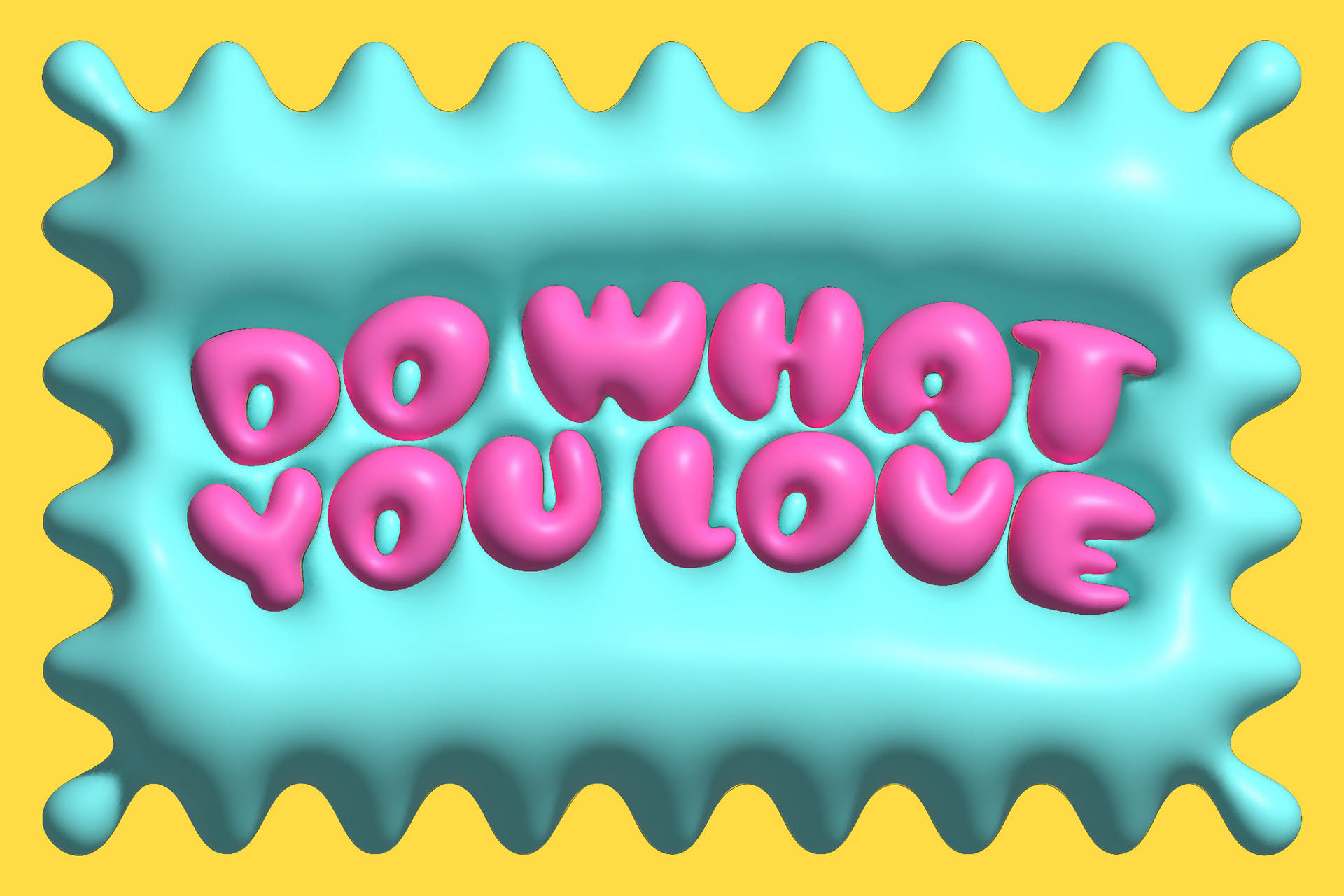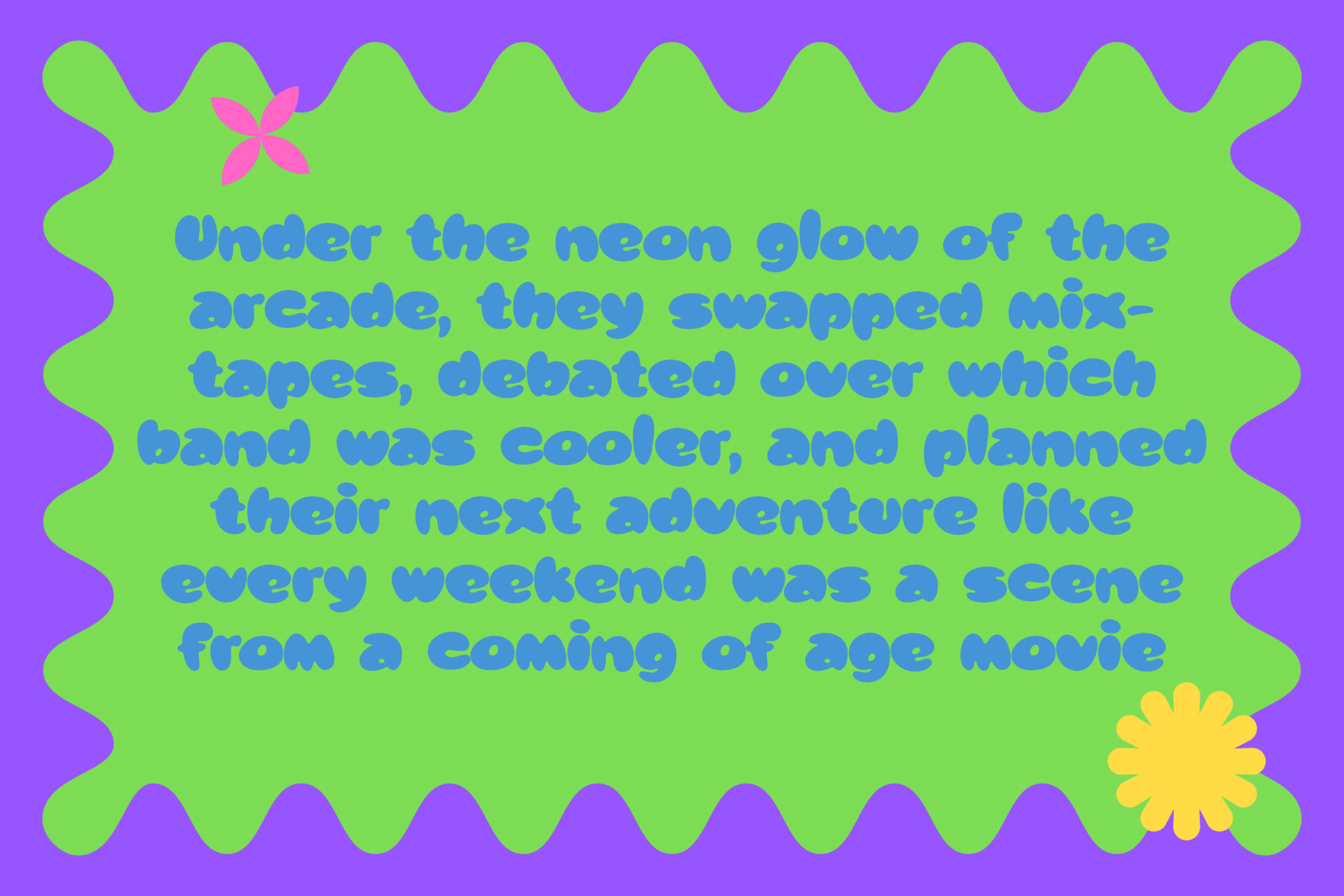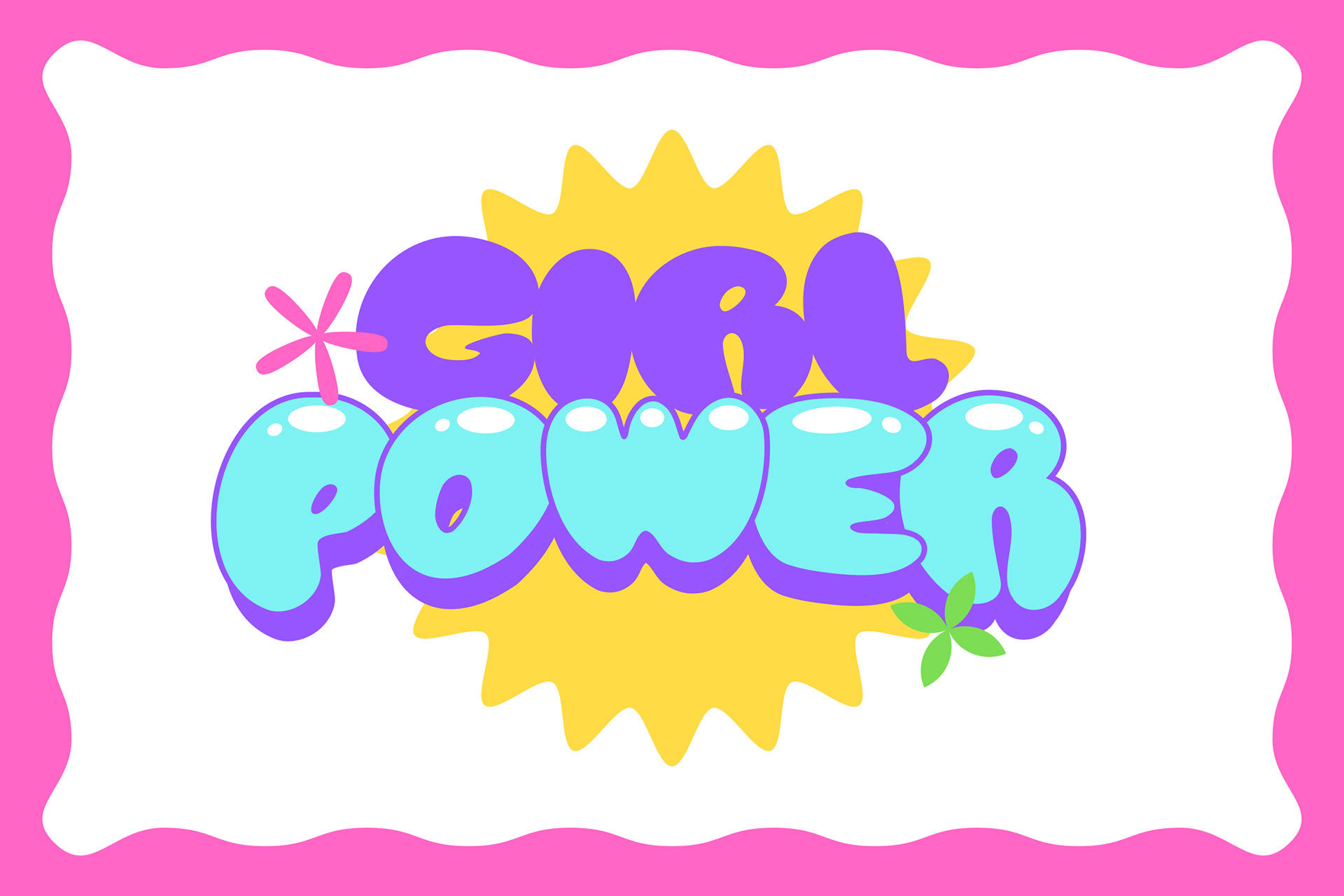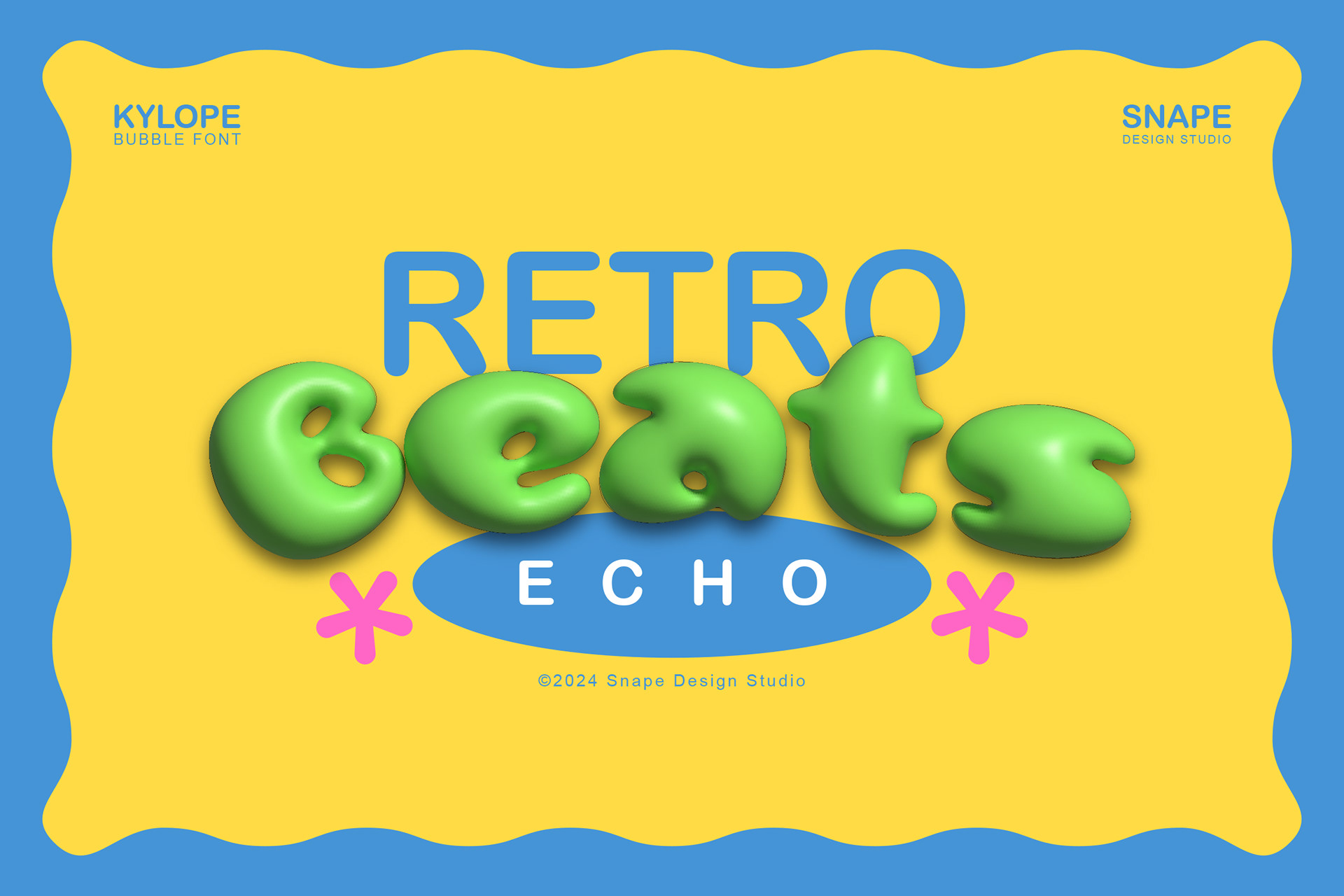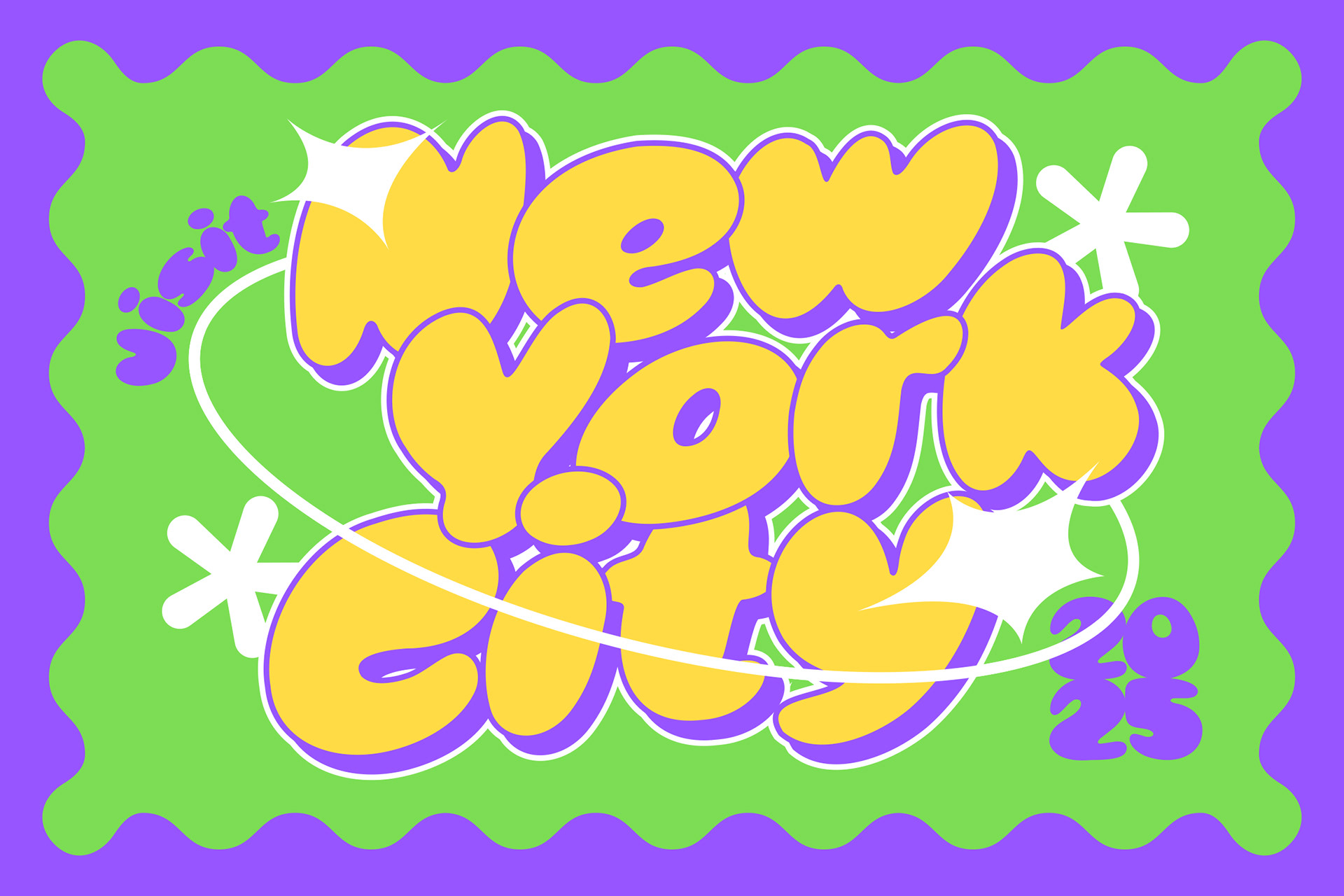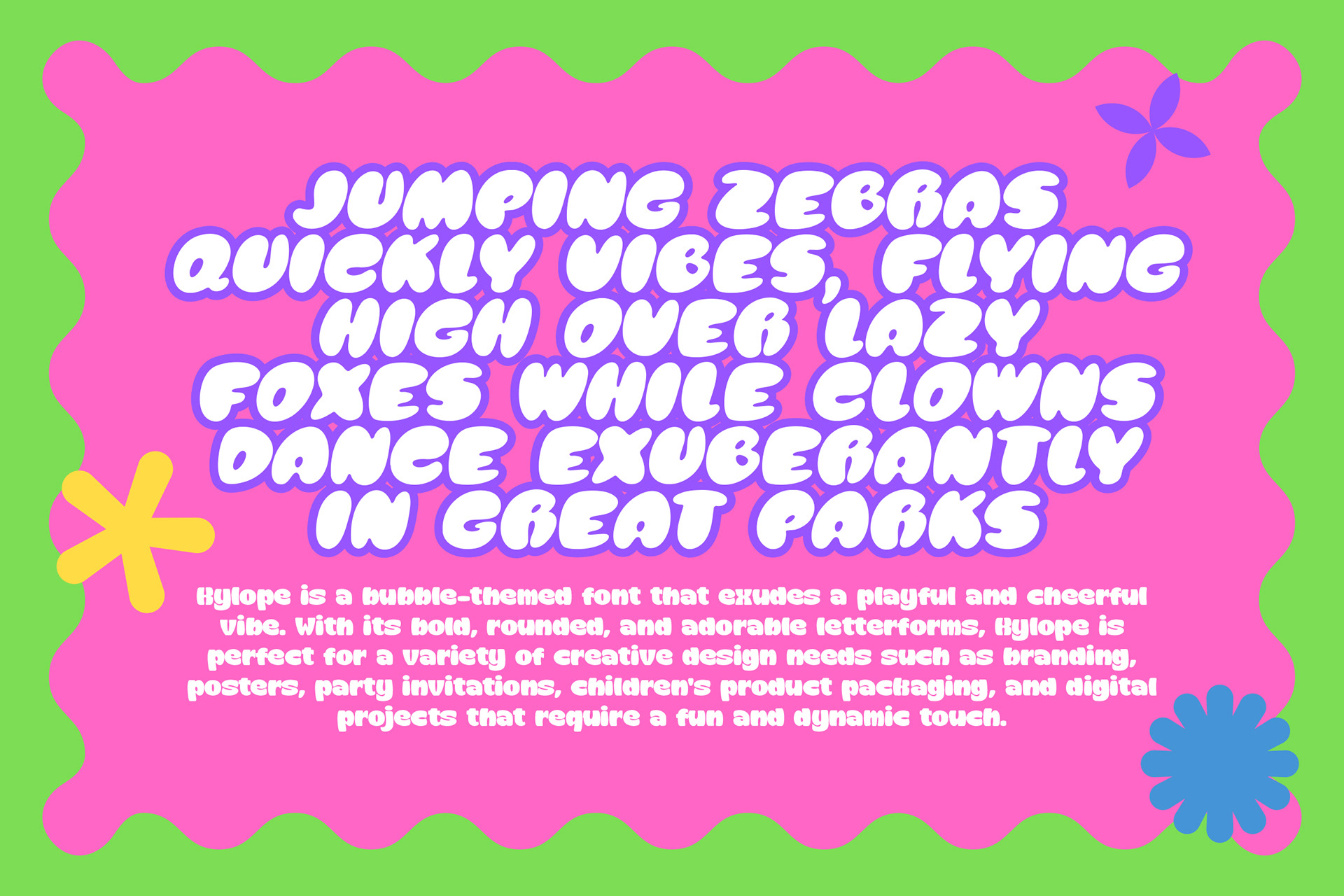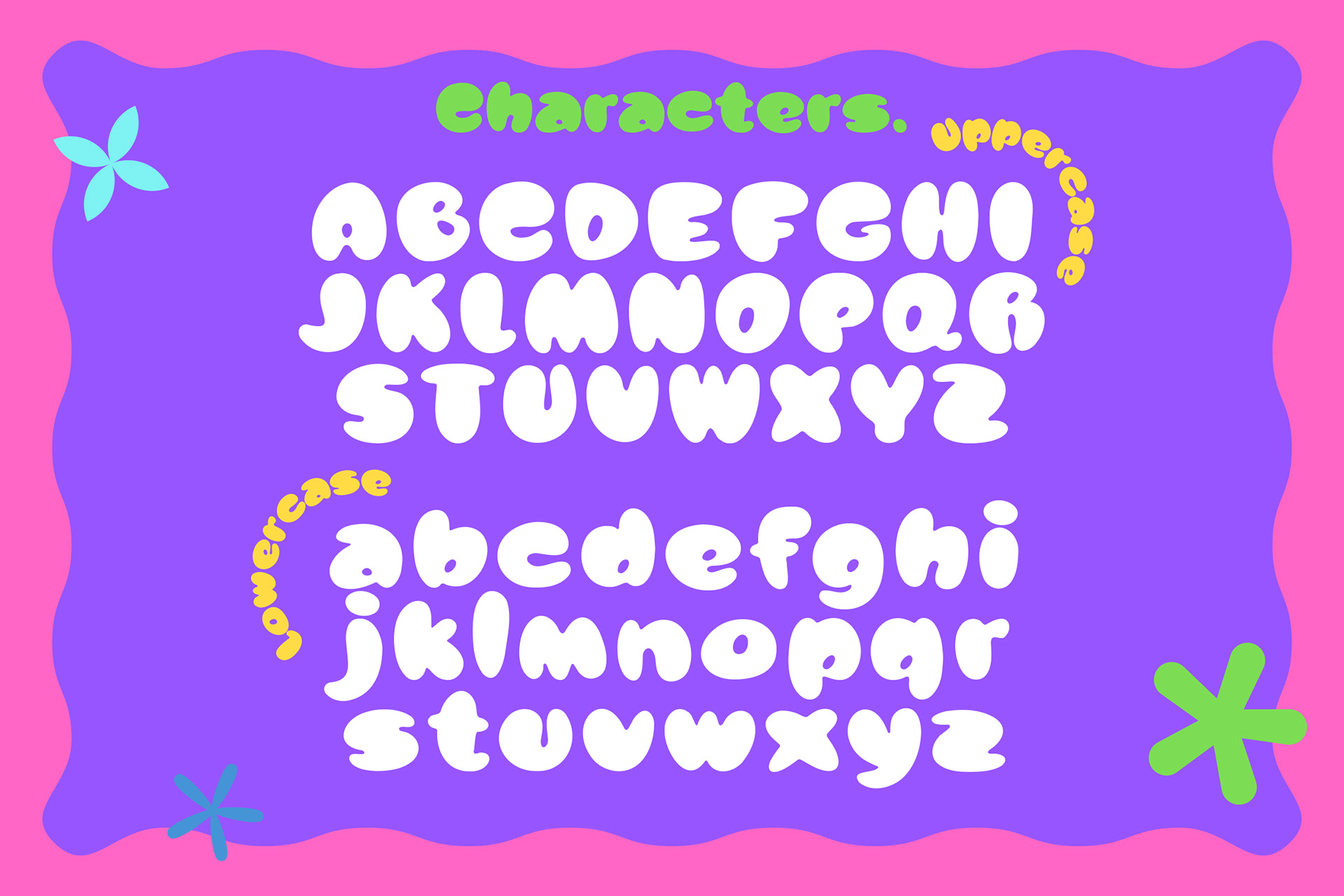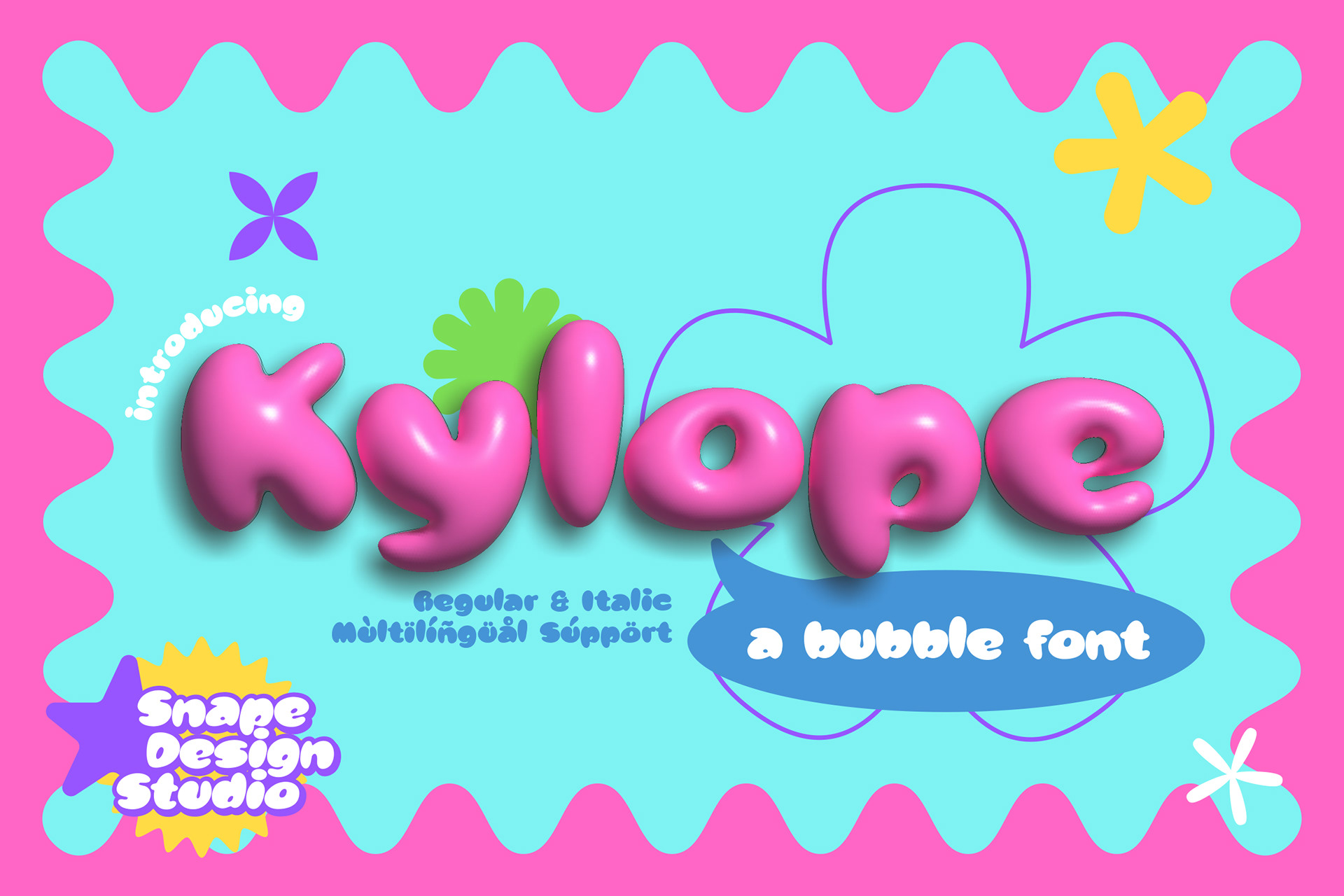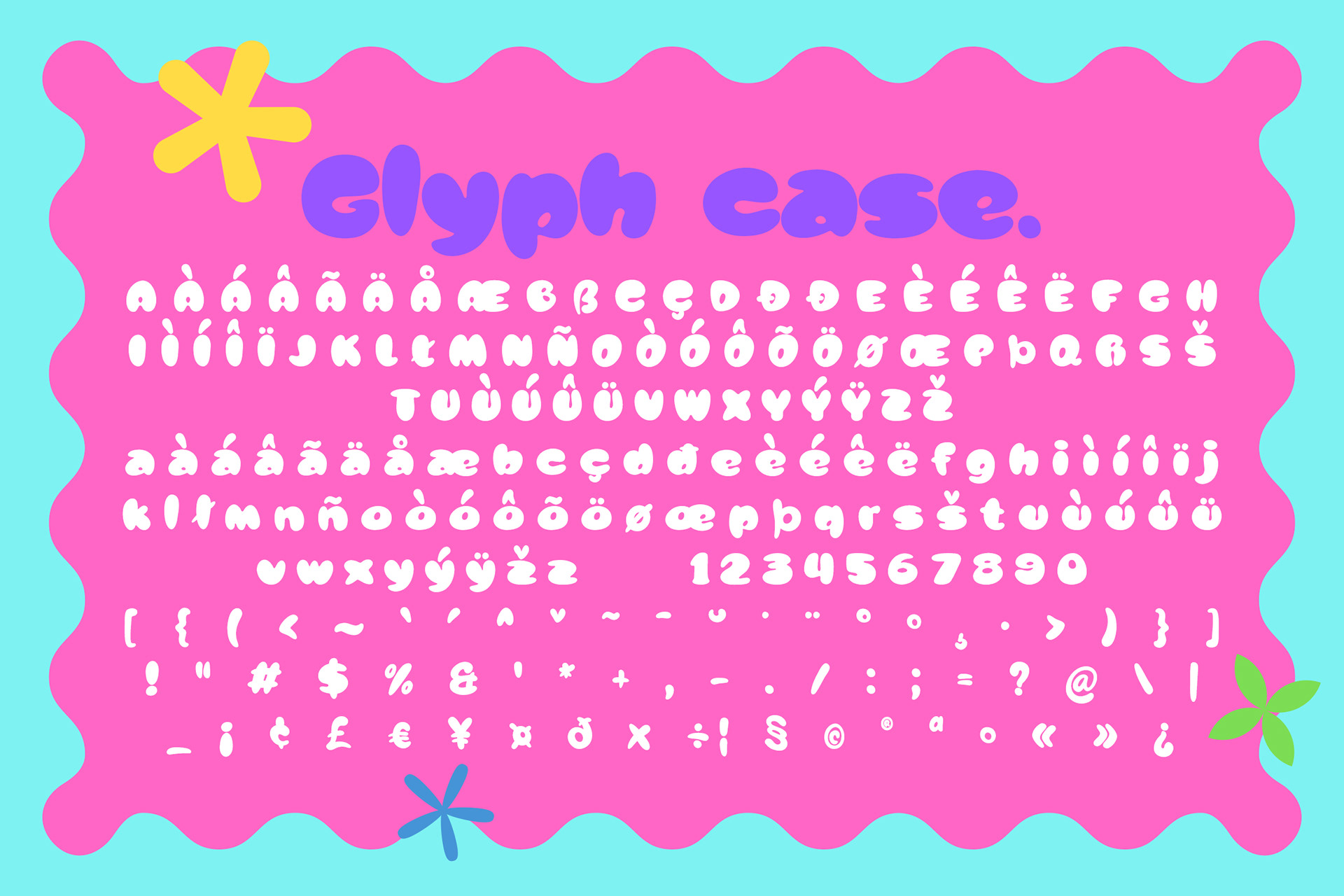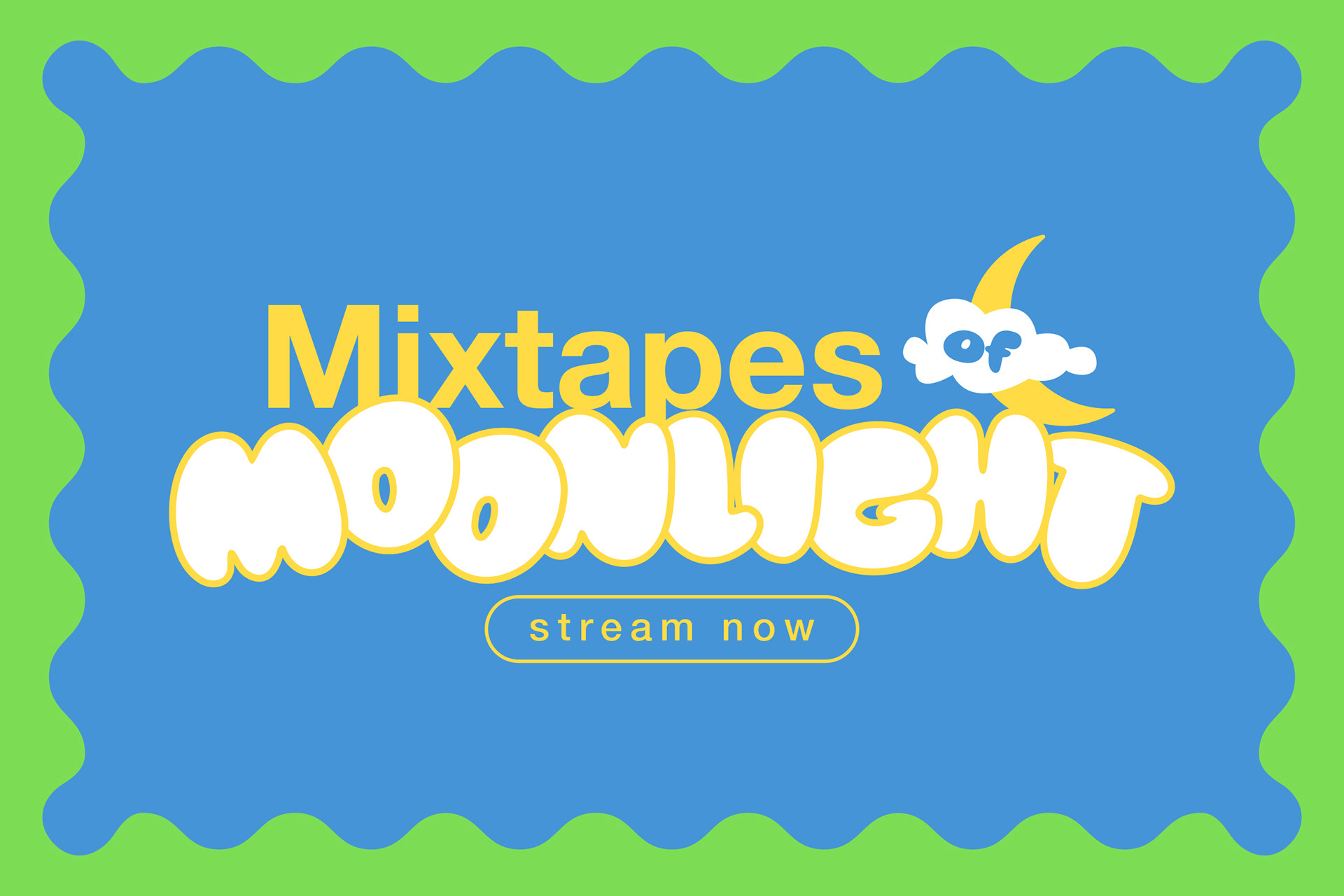
ABOUT THE FONT
Kylope is a bubble-themed font that exudes a playful and cheerful vibe. With its bold, rounded, and adorable letterforms, Kylope is perfect for a variety of creative design needs such as branding, posters, party invitations, children’s product packaging, and digital projects that require a fun and dynamic touch.
Kylope - Bubble Font design by Ario Sabrang Damar publish under Snape Design Studio